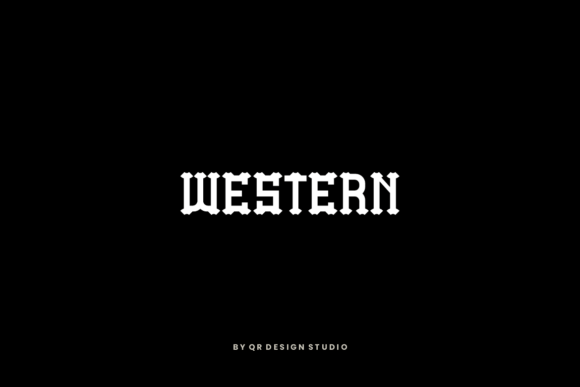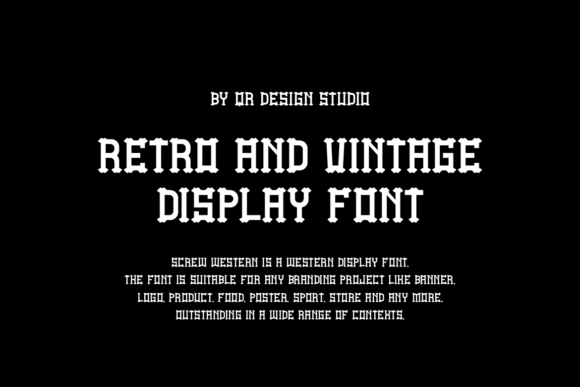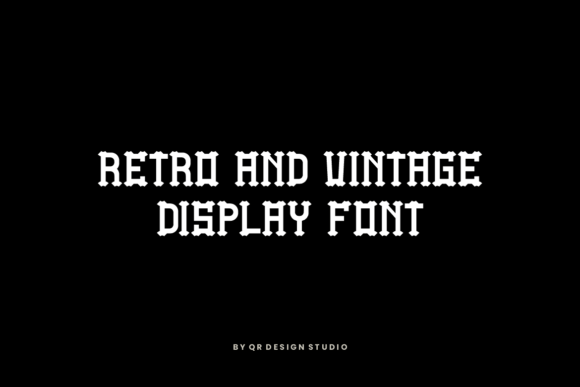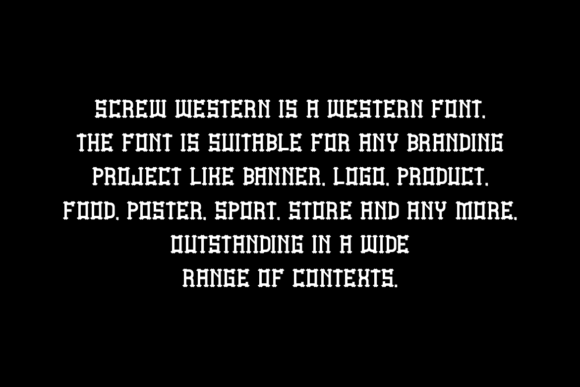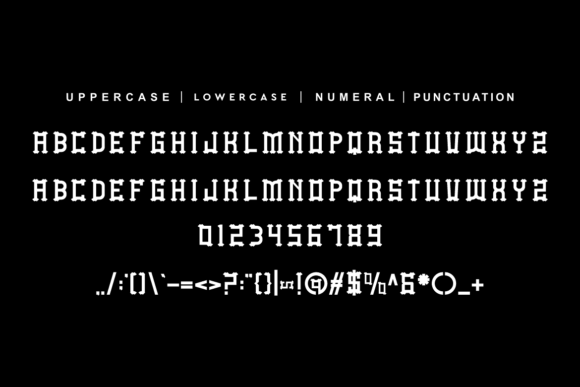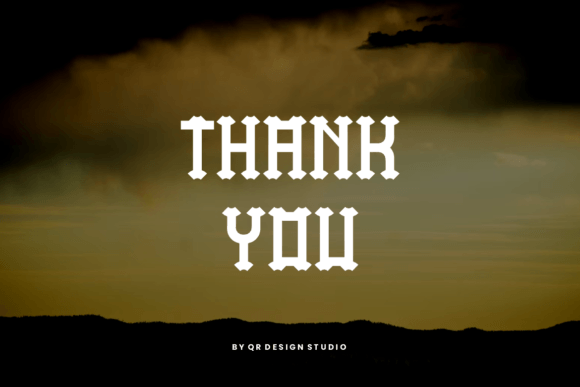
Introduction to Screw Western Font
Remember that moment when you’re working on a creative project, pouring your heart and soul into it, and you need the perfect font to elevate it to the next level? For designers, finding the right font can be a game-changer. It’s like the final brush stroke on a masterpiece – it brings everything together.
That’s where the Screw Western Font comes in – a bold and assertive slab serif font that’s sure to make a statement. With its high-quality design and versatility, it’s an incredibly valuable resource for any designer looking to take their creations to the next level.
Screw Western Font Key Features
- Unique, hand-drawn design ideal for creative projects and artistic expressions.
Honest Review: Screw Western Font
As a designer, I’m always on the lookout for unique and high-quality design resources to elevate my creative projects. Recently, I stumbled upon the Screw Western Font, and I’m excited to share my honest review.
What works well: ✨ The font has a distinct, rugged aesthetic that’s perfect for projects with a western or country theme. The font is highly customizable, and I appreciate the transparent background option, which allows for seamless integration with any design element. The free download is a definite plus, making it an attractive option for designers on a budget.
What doesn’t work well: ⚠️ The font’s limitations lie in its limited character set and lack of bold weight options. This can be a challenge when working on projects that require a wider range of font styles. Additionally, the font’s spacing can be inconsistent at times, which may require some manual adjustments.
Overall impression: The Screw Western Font is a solid addition to any designer’s toolkit, offering a unique and stylish option for creative projects. While it has its limitations, the font’s high quality and free download make it a worthwhile resource for designers looking to add some personality to their work.
Key features:
- Unique, rugged aesthetic
- Limited character set
- Lack of bold weight options
Screw Western Font
Screw Western Font is a versatile and unique design resource perfect for creative projects that require a touch of the Wild West. With its high quality and transparent background, this font is an excellent addition to any design.
Using Screw Western Font in Popular Design Software
Use Screw Western Font to create eye-catching graphics and designs for social media, flyers, and brochures.
Utilize Screw Western Font in your vector designs, logos, and illustrations for a unique touch.
Enhance your presentations and documents with Screw Western Font for a creative and memorable impression.
Tips for Getting the Most Out of Screw Western Font
Combine Screw Western Font with other design elements, such as images and textures, to create a visually appealing design.
Experiment with different font sizes and styles to achieve the desired effect.
Screw Western Font is ideal for:
Western-themed designs
Outdoor and adventure-related projects
Unique and creative branding
Alternatives to Screw Western Font
Great Vibes is a modern, high-quality font perfect for creative projects that require a touch of elegance. It’s ideal for use in logos, branding materials, and other design elements where a sophisticated look is desired.
Compared to Screw Western Font, Great Vibes offers a more refined and polished aesthetic, making it suitable for a wider range of design applications. It’s also available for free download, making it an excellent design resource for designers on a budget.
Dancing Script is a beautiful, cursive font that’s perfect for adding a touch of whimsy to creative projects. It’s ideal for use in invitations, posters, and other design elements where a playful, handwritten look is desired.